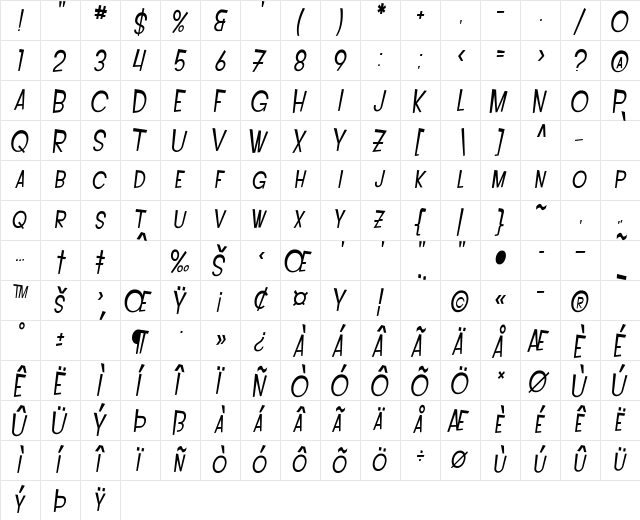
SF Intoxicated Blues Extended Oblique
Design Context for SF Intoxicated Blues Extended Typeface
SF Intoxicated Blues Extended takes a measured approach to typography — its balanced proportions and neutral character make it a reliable workhorse for both digital and print work. Its italic angle brings a sense of urgency and motion to the letterforms.
Pro Tip: Use SF Intoxicated Blues Extended for emphasis, pull quotes, and subheadings where its slanted energy can add rhythm to the layout.